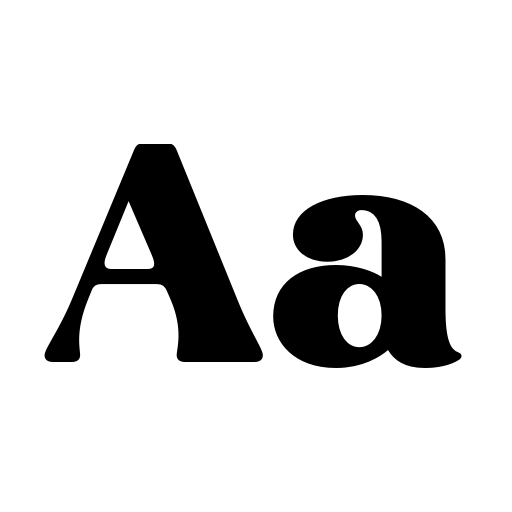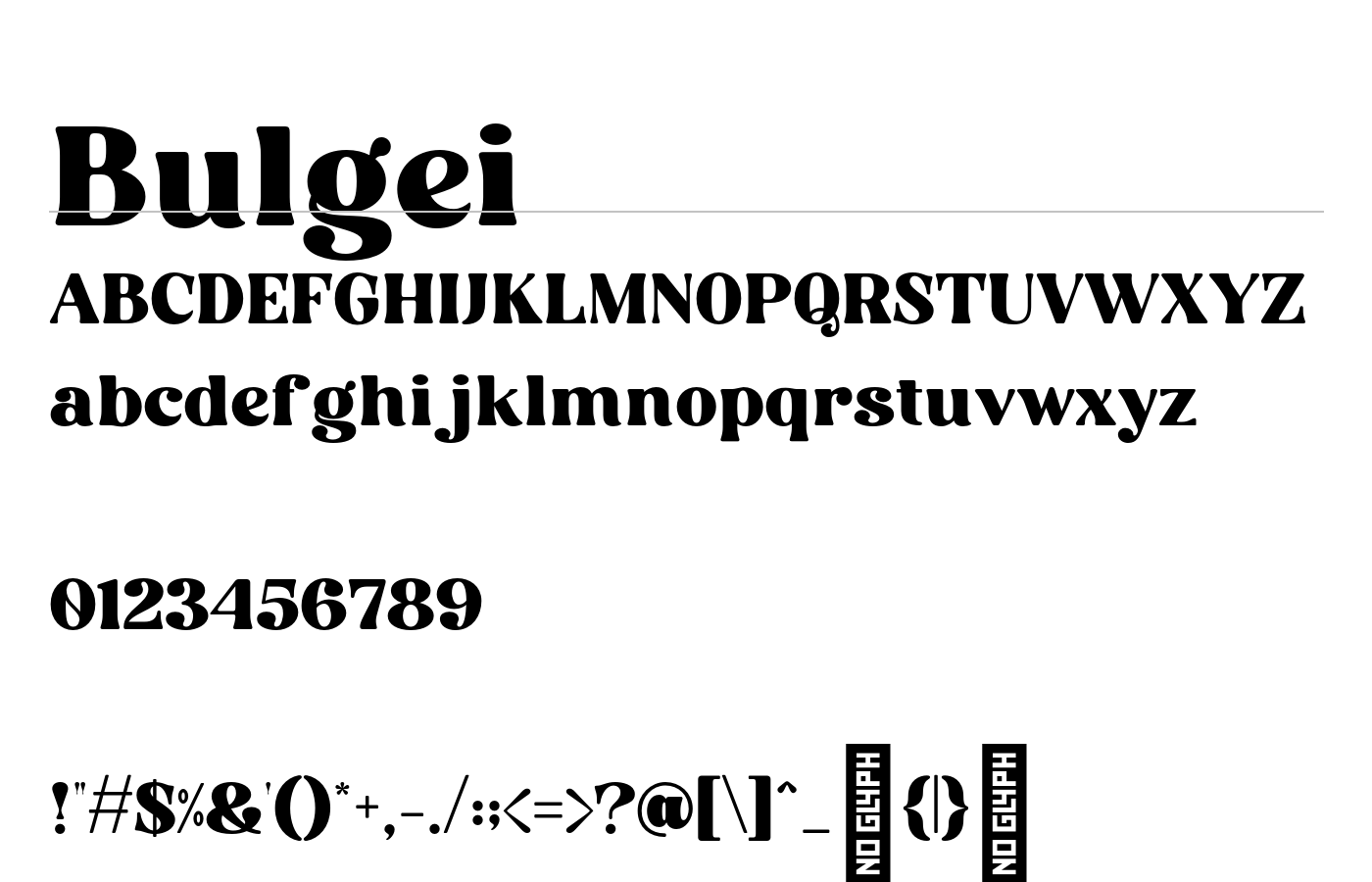
Bulgei is a bold slab serif font with a sturdy and playful character. Its thick, blocky serifs and high contrast between thick and thin strokes give it a strong, vintage feel, while unique letterforms like the curled Q tail and single-story g add personality. This font works great for attention-grabbing headlines, logos, and branding projects that want to combine a classic look with a touch of whimsy.
Bulgei Font
About Bulgei Font
| Font family | Bulgei Font |
| Designer | Brandsemut |